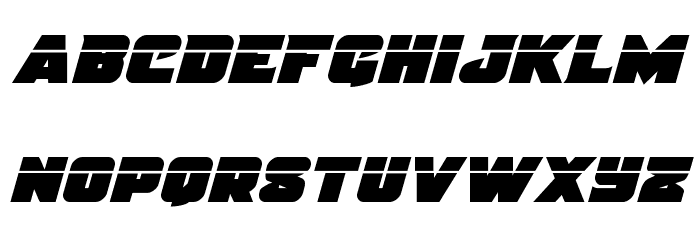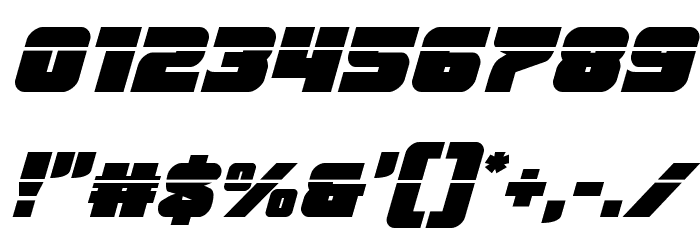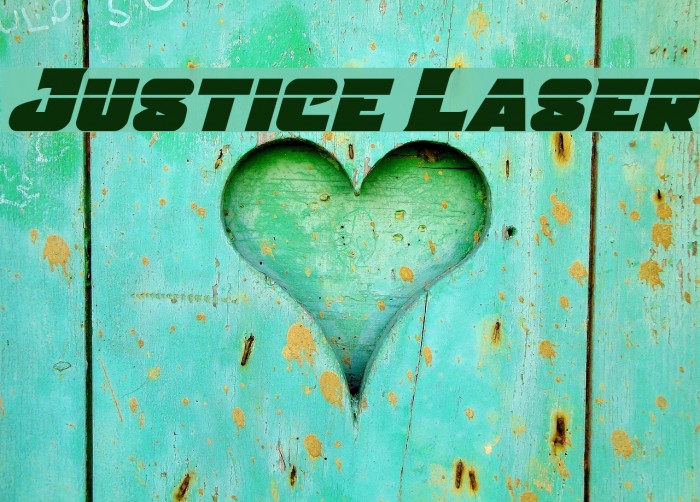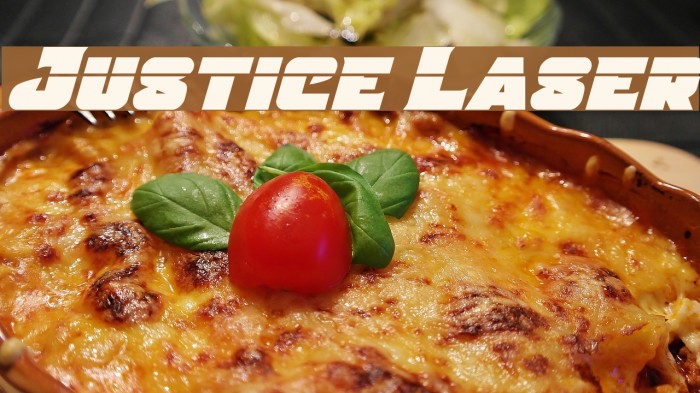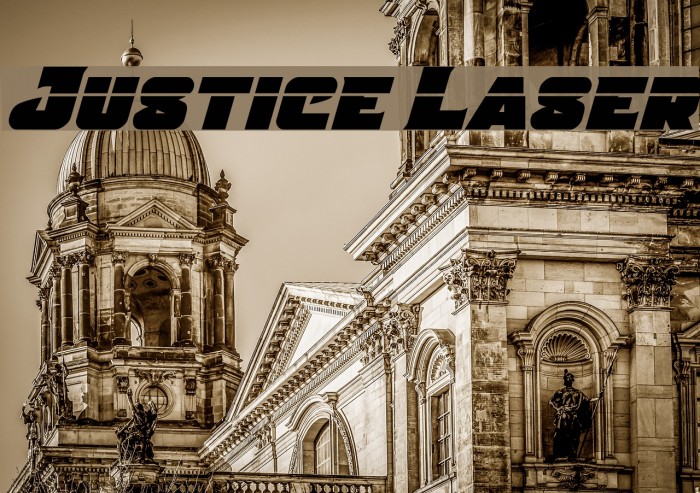
Justice Laser Font
This font features a bold, futuristic design with sharp, angular edges and a dynamic, forward-leaning stance. The characters are heavily stylized, with thick strokes and a distinct geometric influence, giving it a powerful and energetic appearance. The uppercase and lowercase letters maintain a consistent style, emphasizing a sense of speed and modernity. The numbers and special characters follow the same design principles, ensuring uniformity across all elements. This font is ideal for projects that require a strong visual impact and a contemporary aesthetic.
A bold, futuristic font with angular, dynamic characters.
- Proposed Projects: Ideal for sci-fi themed designs, video game titles, tech branding, and dynamic posters.